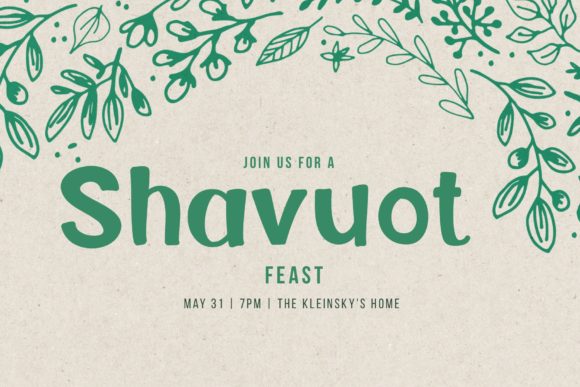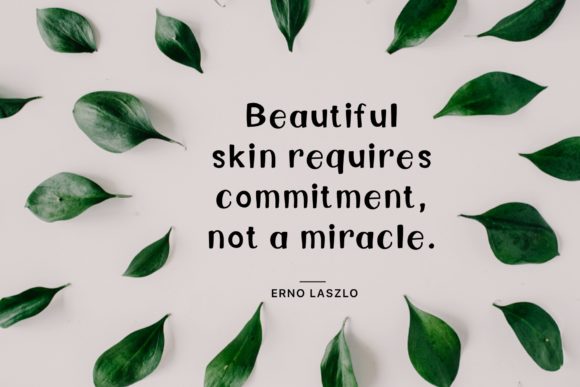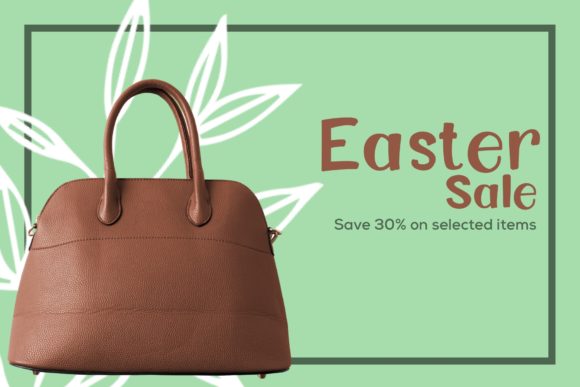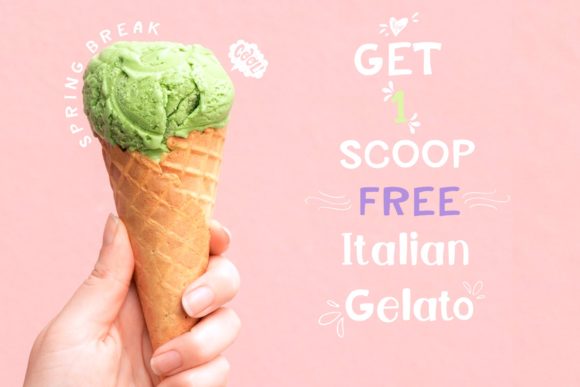
Dingy Font
About Dingy Font
Dingy results out of a stunning pairing of a brush pen and pencil that makes it look incredibly endearing and authentic. It will elevate a wide range of design projects to the highest level, be it branding, headings, wedding designs, invitations, signatures, logos, labels, and much more!